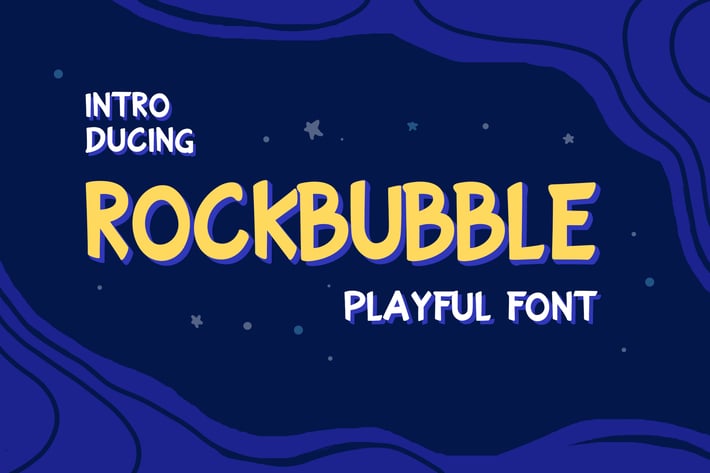
Rockbubble Sans Serif Font
Rockbubble is a playful yummy font that is perfect for any modern-design including logo, branding, posters, wedding invitations. It's also could be good for any kids, school or kindergarten-themed design project!